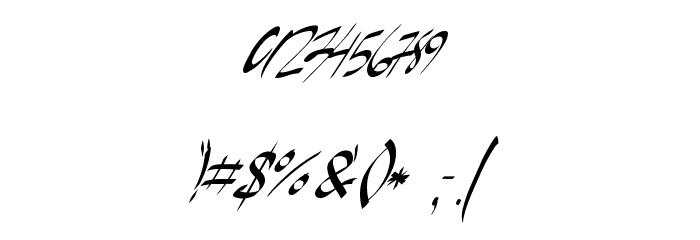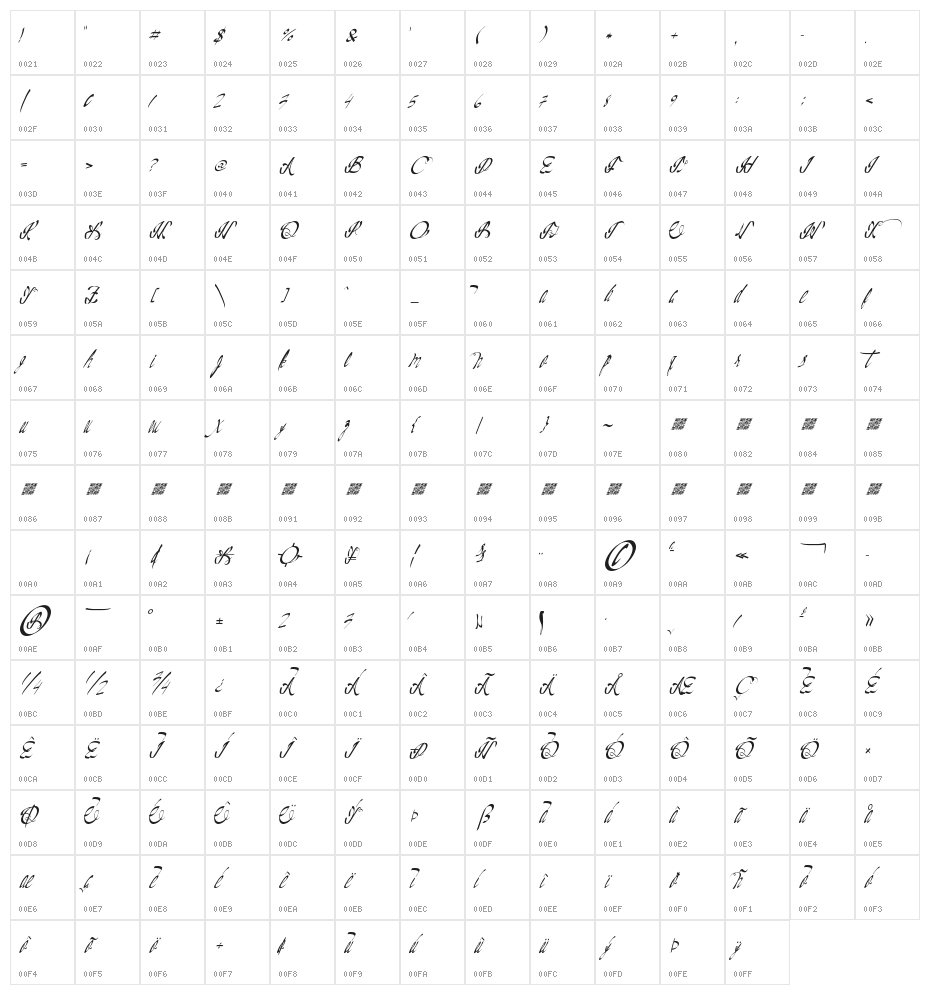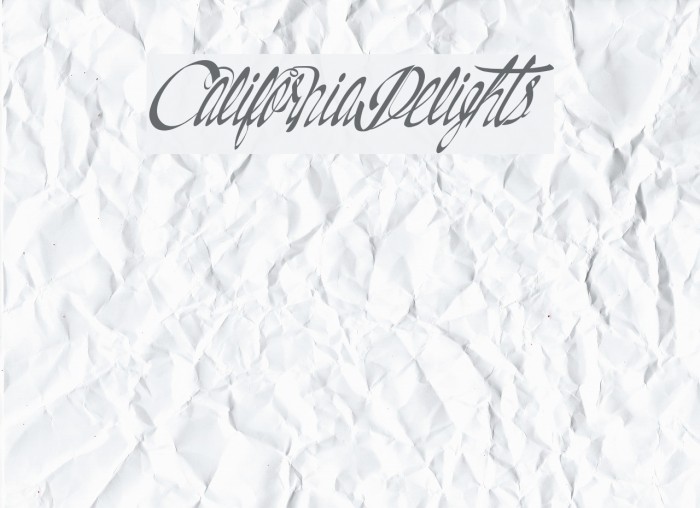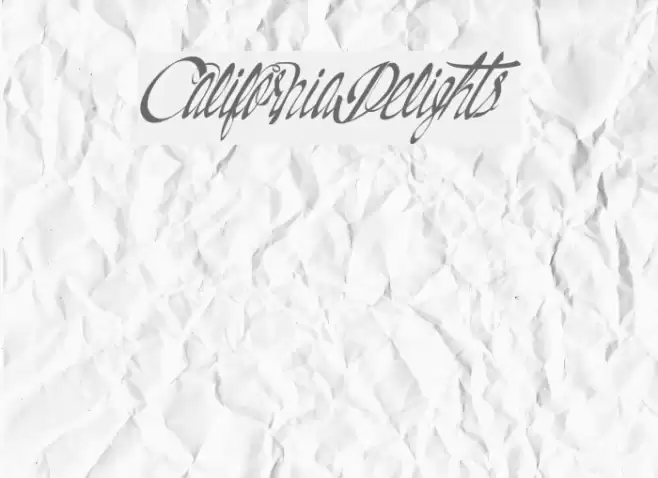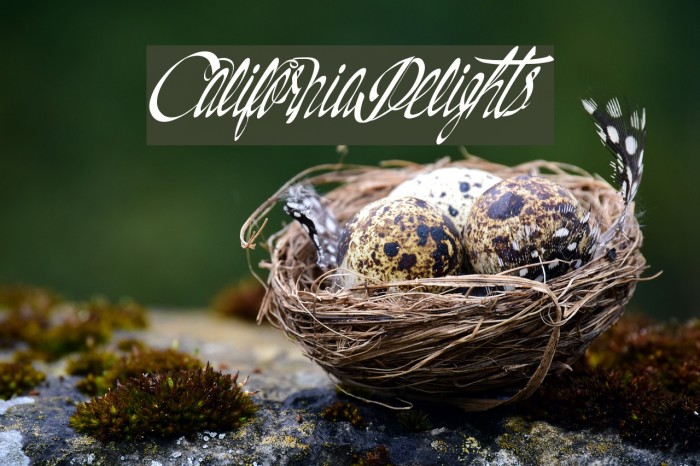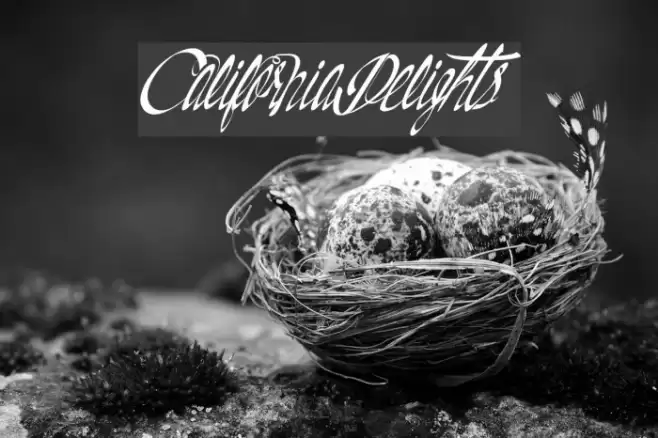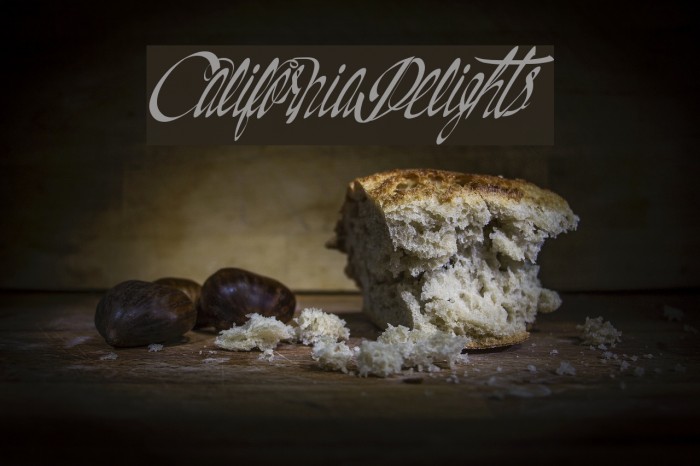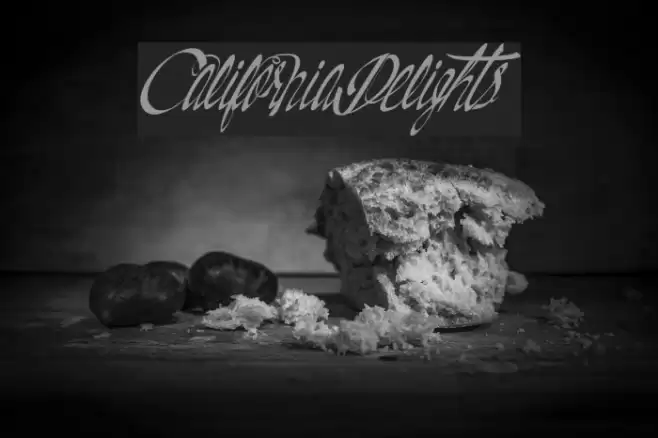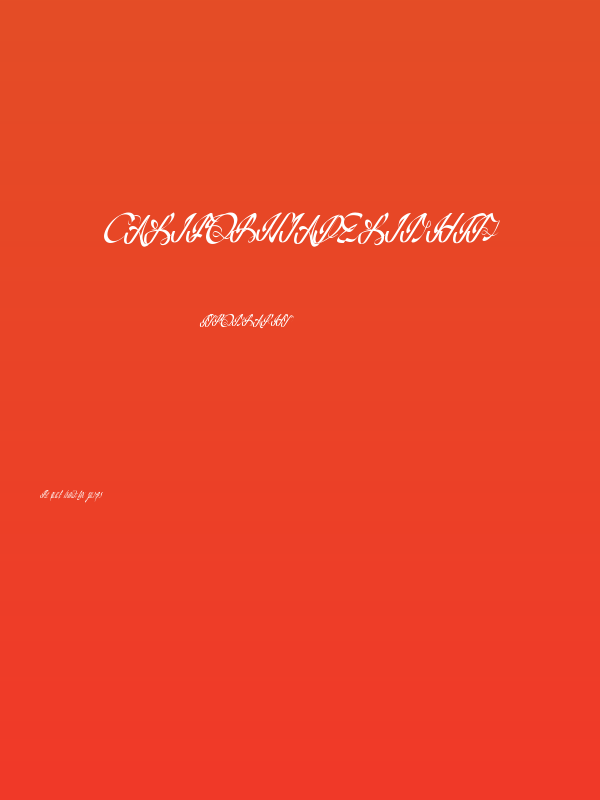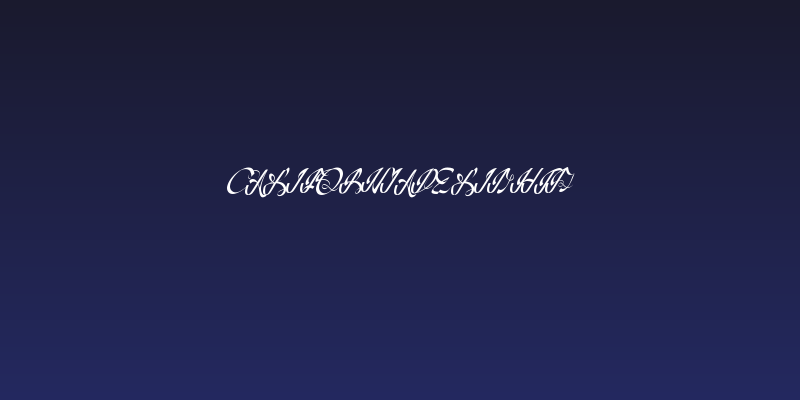
CaliforniaDelights Font
CaliforniaDelights Description
This font exudes elegance and sophistication with its intricate script style. The characters are designed with flowing, cursive strokes that create a sense of movement and grace. The uppercase letters are particularly ornate, featuring elaborate loops and swirls that add a decorative touch. The lowercase letters maintain a consistent style, with smooth connections between characters that enhance readability. Numbers and special characters are crafted with the same attention to detail, ensuring a cohesive look across all text elements. This font is perfect for projects that require a touch of luxury and refinement.